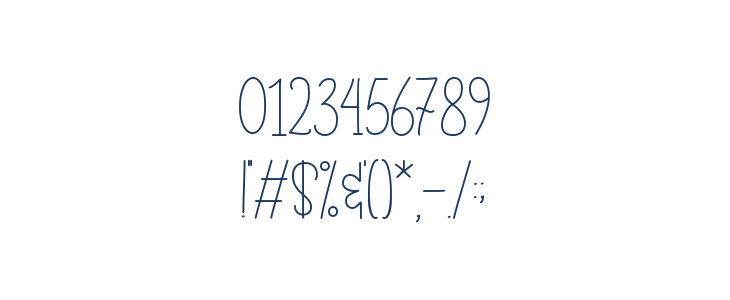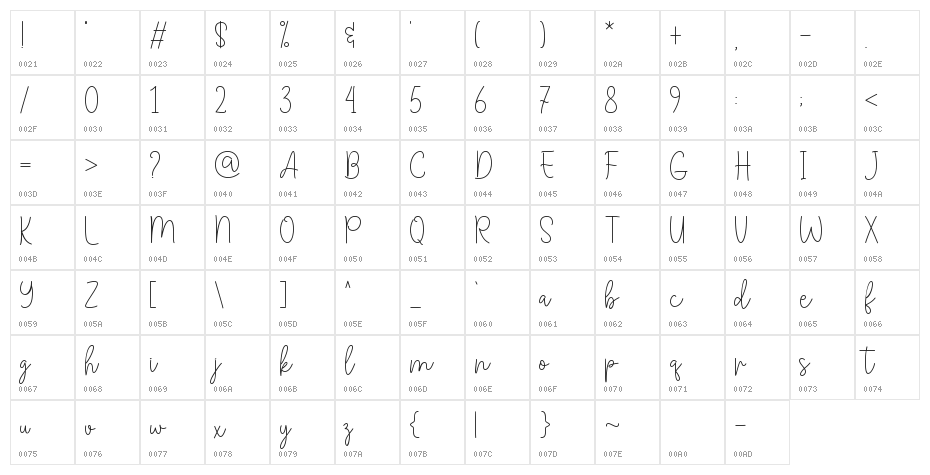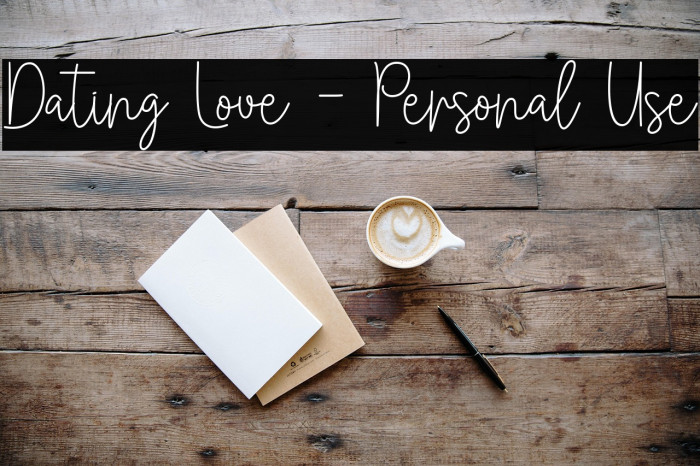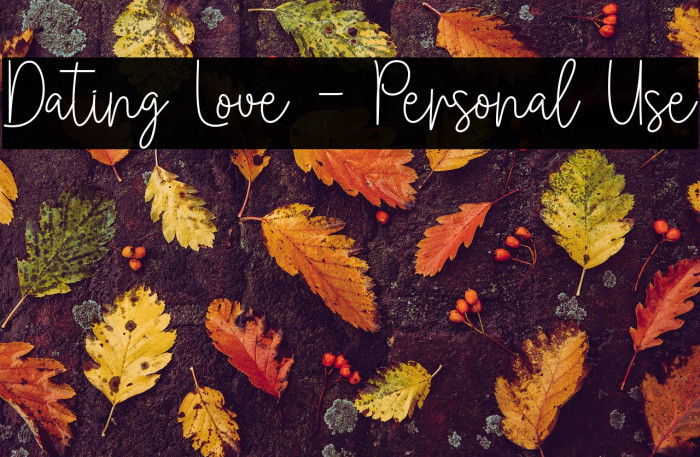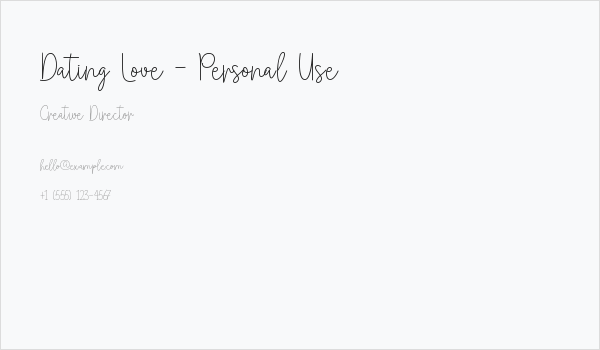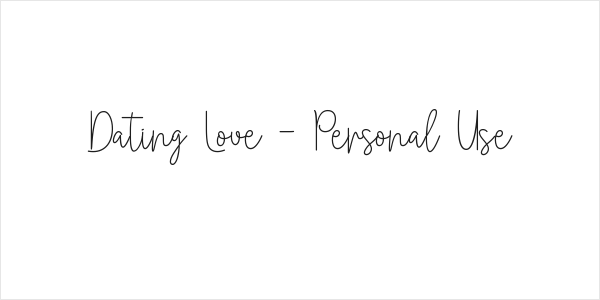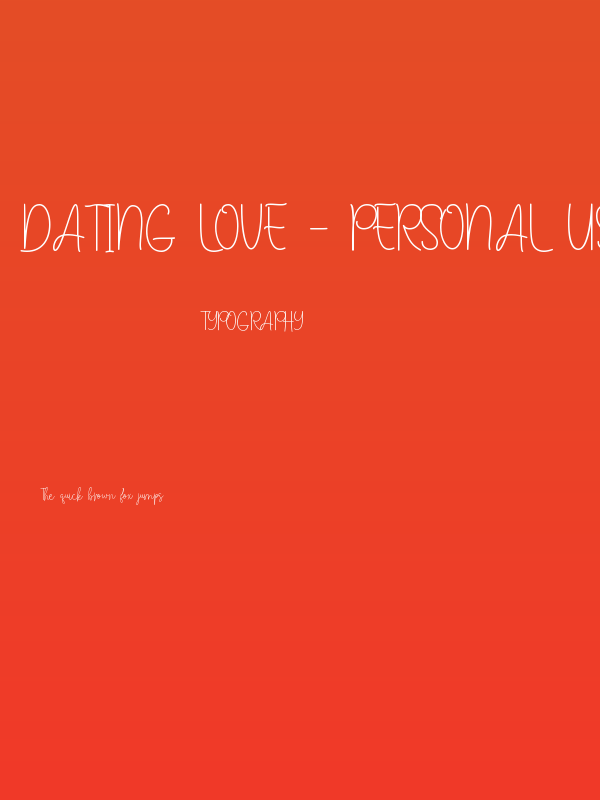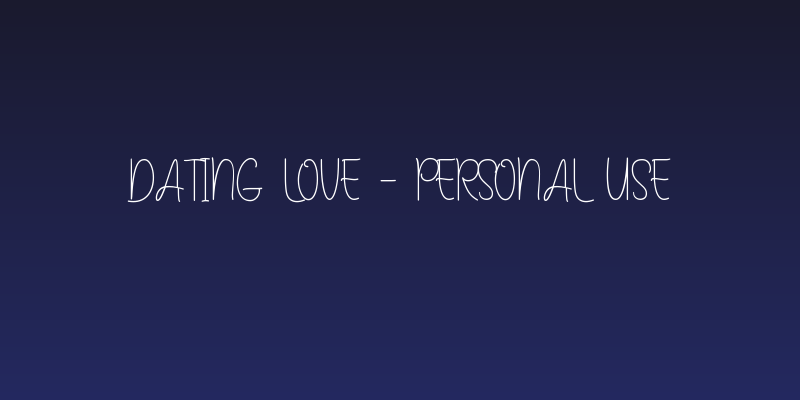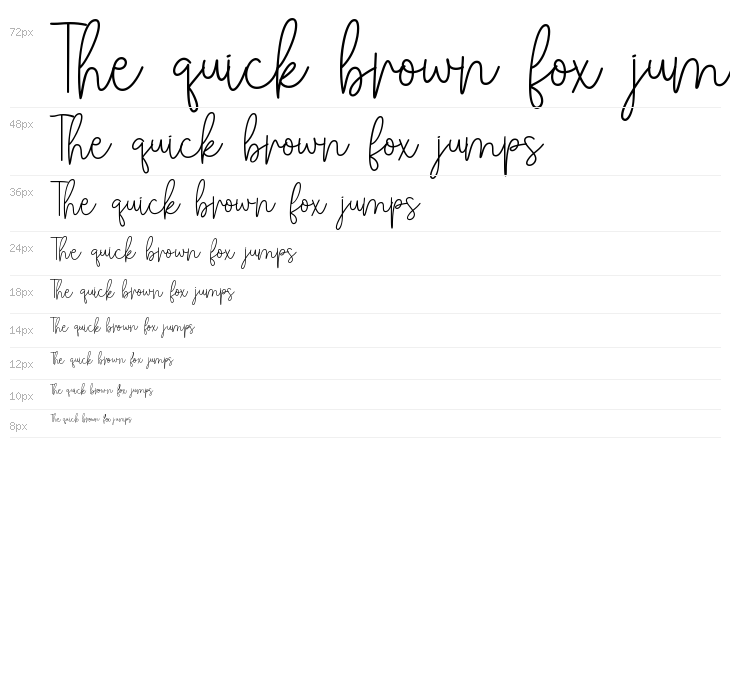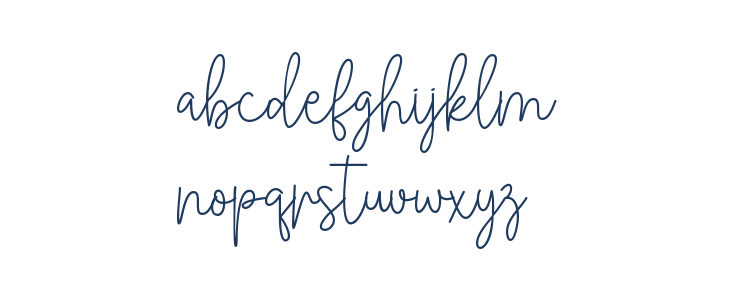
This font features a playful and whimsical handwritten style, characterized by its flowing and interconnected letterforms. The uppercase letters are tall and slender, with a slight slant that adds a dynamic feel. The lowercase letters maintain a consistent style, with loops and curves that enhance its casual and friendly appearance. The numerals are clear and legible, matching the overall aesthetic of the letters. Special characters are included, maintaining the same playful and cohesive design. This font exudes a sense of warmth and personality, making it ideal for projects that require a personal touch.
Overall StyleCasual
Use CaseLogos, Invitations, Social Media
Proposed ProjectsIdeal for greeting cards, invitations, personal branding, and social media graphics.